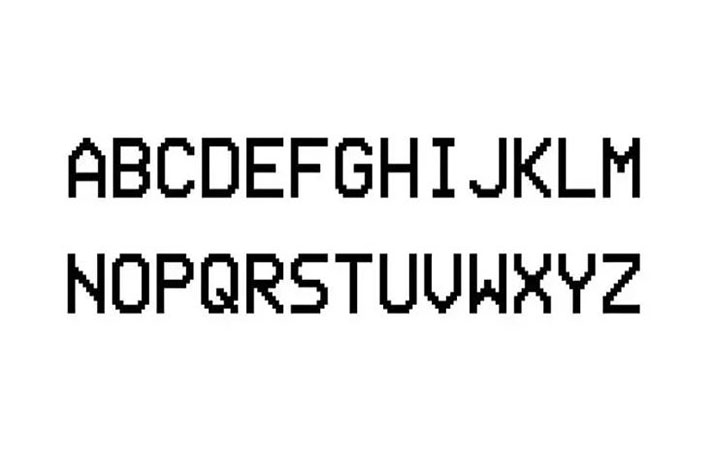
VCR EAS Font is a display typeface that has a blocky pixelated look. TheEASpeedyJay charge of designing and releasing it for the first time in 2018.
Its design is inspired by VCRs used in the early 90s. This type of font is being used in VCR. That’s why the designer named it VCR EAS.
All textures are created with cubic strokes and with appropriate baselines. Also, the designer creates a sans-serif corner. So, you can easily use these different fonts for basic designs and sans serif typefaces.